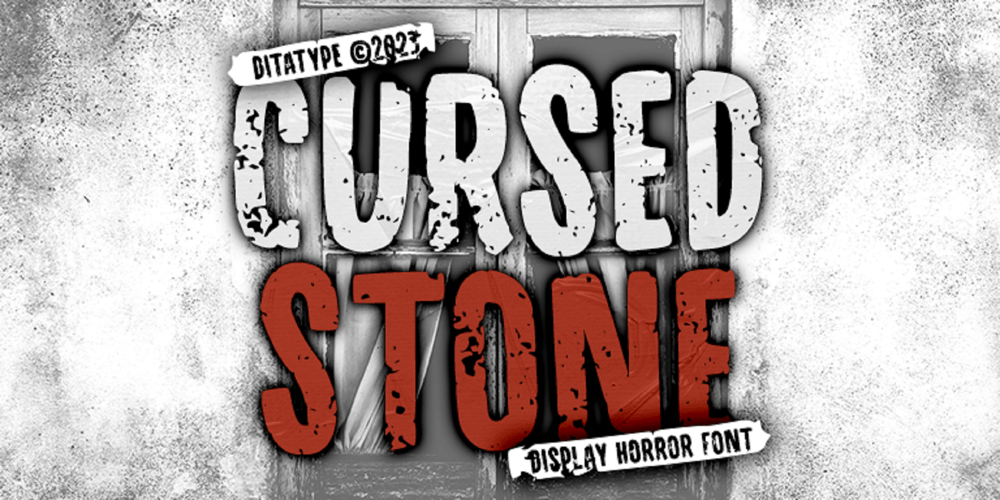
Cursed Stone Font Family was designed by Donis Miftahudin and published by Ditatype. Cursed Stone contains 1 styles and family package options. Cursed Stone is a spine-chilling display font that will transport your designs to a realm of dark enchantment. Designed in large letters and with a bold weight, this typeface demands attention and exudes an aura of haunting mystery. Each letter is meticulously crafted with eerie stone texture details, adding an ominous and cursed touch to the font. The large size of the letters enhances the font’s imposing presence, making it impossible to ignore. The stone texture details in each letter of this font bring an authentic and sinister feel, as if the font was chiseled from the depths of an ancient cursed monument. These haunting details add an element of mystique and darkness, immersing the viewer into a world of malevolent enchantment. The combination of bold weight and stone texture gives Cursed Stone a rugged and formidable look, evoking images of cursed relics and forbidden ruins. The letters appear to hold secrets from the past, carrying a haunting energy that captures the imagination. For the best legibility you can use this font in the bigger text sizes. Enjoy the available features here.Features: Alternates Multilingual Supports PUA Encoded Numerals and Punctuations Cursed Stone fits in headlines, logos, movie posters, flyers, invitations, branding materials, print media, editorial layouts, headers, and any horror-themed project. Find out more ways to use this font by taking a look at the font preview.Thanks for purchasing our fonts. Hopefully, you have a great time using our font. Feel free to contact us anytime for further information or when you have trouble with the font. Thanks a lot and happy designing.